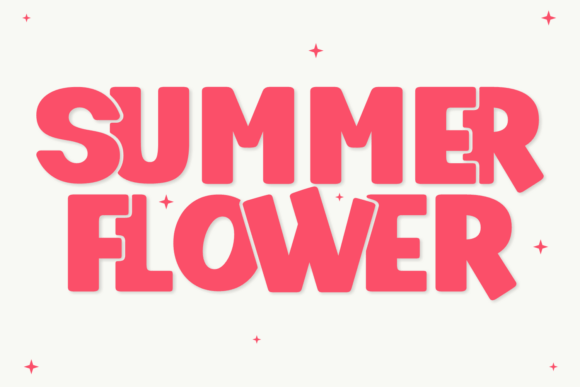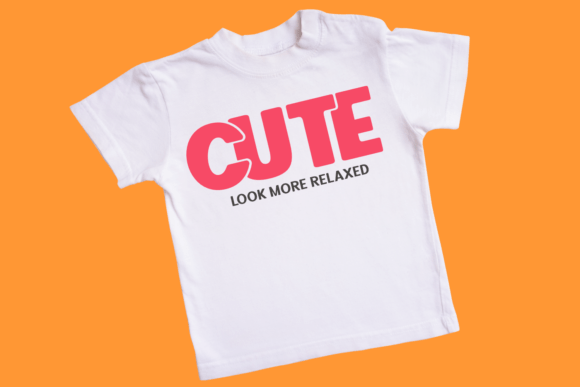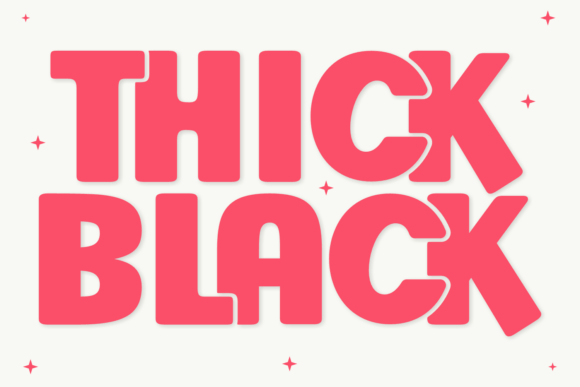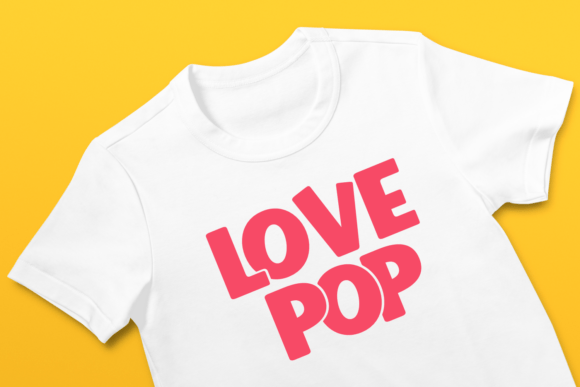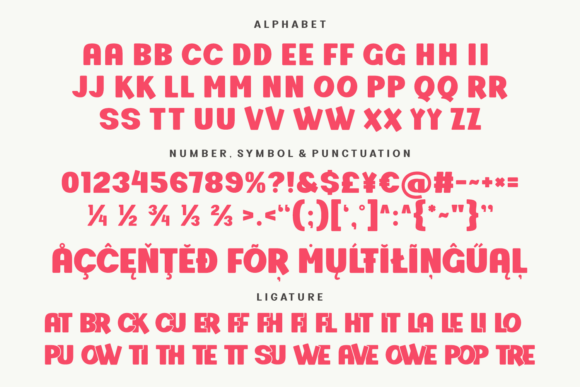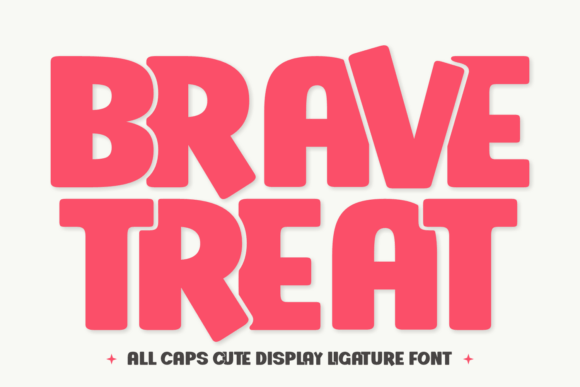
Discover the Enchanting Charm of Brave Treat Fonts
Are you on the hunt for a typography masterpiece that embodies the perfect blend of boldness and playfulness? Look no further than Brave Treat Fonts! This delightful font is sure to infuse any project with a festive spirit, making it a go-to choice for designers and crafters alike. With its cute, fun vibe and blocky, thick characteristics, Brave Treat Fonts deliver memorable impressions that are sure to leave a lasting impact.
A Display Font with a Difference
Brave Treat Fonts is a display font that boasts a unique combination of daring boldness and inviting playfulness. Its well-crafted ligatures and stylish all-caps tones make any message bounce, while its endearing prettiness works flawlessly for education and child-related themes. Whether you’re designing a project for a school, teacher, kids, or children, this font is sure to emerge as the perfect choice.
The Perfect Font for Festive Projects
With its robust and rounded edges, Brave Treat Fonts shine during holidays and special occasions. The font’s bold typeface makes it ideal for birthdays, logos, and other celebratory designs. Additionally, its rounded corner font delivers a summery appeal that’s perfect for sticker and t-shirt designs. Whether you’re creating a project for Thanksgiving celebrations or farmhouse themes, Brave Treat Fonts bring cool creativity to your font arsenal.
One of the standout features of Brave Treat Fonts is its versatility. This font can be used for a wide range of projects, from education and child-related themes to festive designs and logos. Its unique blend of boldness and playfulness makes it perfect for designers and crafters who want to add a touch of fun and personality to their work.
What Makes Brave Treat Fonts So Special?
So, what sets Brave Treat Fonts apart from other fonts? Here are just a few of its special features:
- Cute and Fun Vibe: Brave Treat Fonts has a unique and playful vibe that’s sure to infuse any project with a festive spirit.
- Blocky and Thick Characteristics: The font’s blocky and thick characteristics deliver memorable impressions that are sure to leave a lasting impact.
- Well-Crafted Ligatures: Brave Treat Fonts features well-crafted ligatures that add a touch of elegance and sophistication to any design.
- Stylish All-Caps Tones: The font’s stylish all-caps tones make any message bounce and add a touch of fun and personality to any design.
How to Use Brave Treat Fonts in Your Designs
- Use it for Headings and Titles: The font’s bold and playful vibe makes it perfect for headings and titles.
In conclusion, Brave Treat Fonts is a typography masterpiece that’s sure to delight designers and crafters alike. With its unique blend of boldness and playfulness, this font is perfect for a wide range of projects, from education and child-related themes to festive designs and logos. Whether you’re looking to add a touch of fun and personality to your work or create a memorable impression, Brave Treat Fonts is the perfect choice.